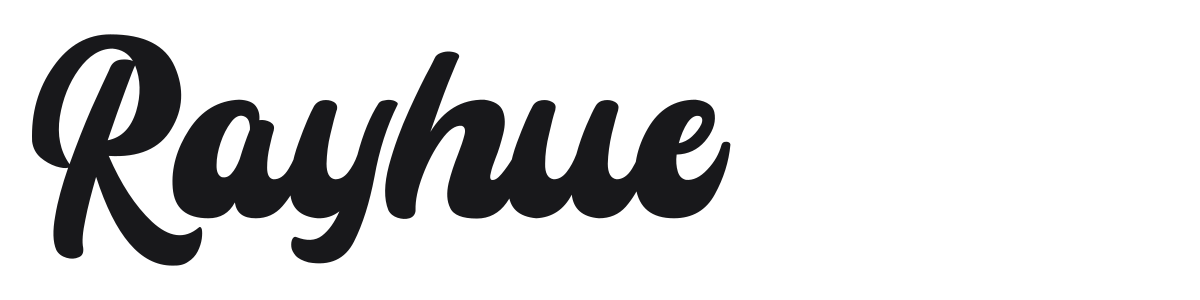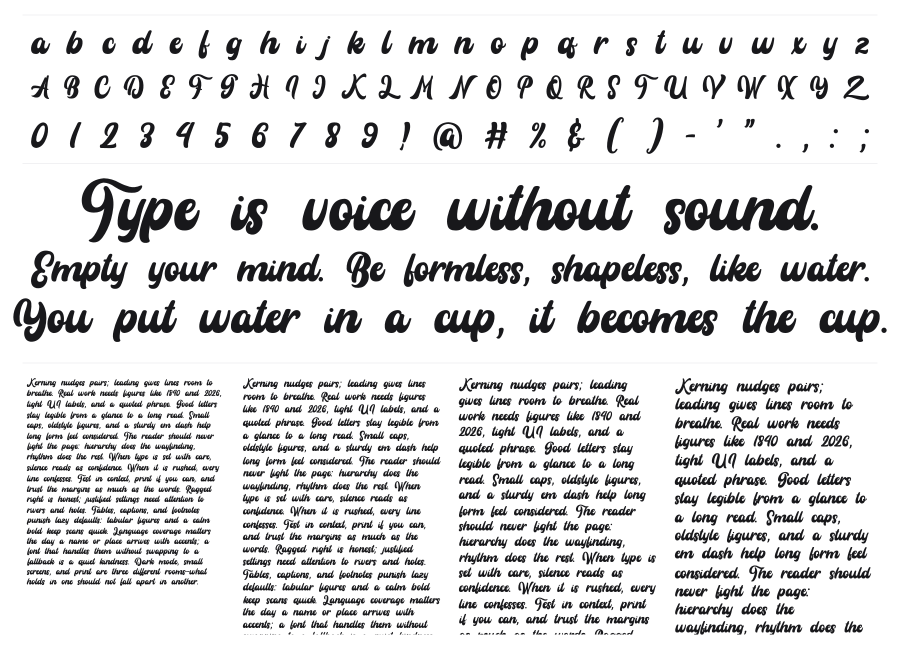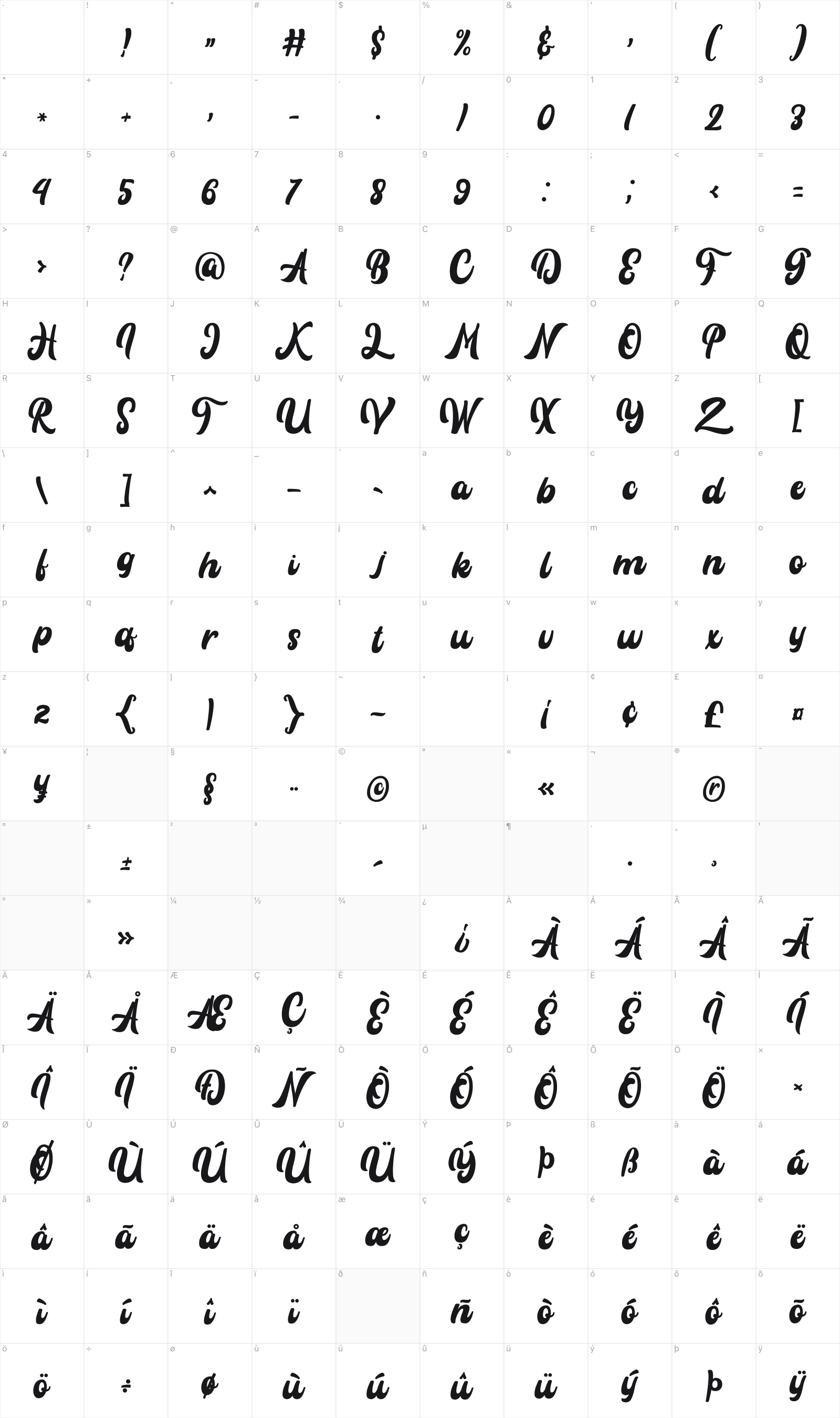
Rayhue
Rayhue is a bold casual script with the confident, flowing energy of mid-century hand lettering. Its thick connected strokes and rounded terminals give it a friendly, approachable personality that works well across branding, packaging, and poster work. The generous x-height and strong rhythm make it readable even at a quick glance.